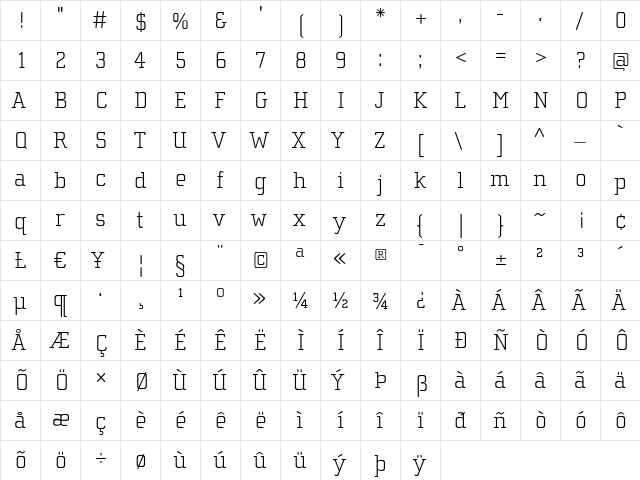
ChollaSlab-Thin Thin
Design Context for ChollaSlab-Thin Typeface
ChollaSlab-Thin combines the readability of serif typography with the visual weight of a slab construction, resulting in a typeface that feels both authoritative and approachable. Its slender proportions lend an understated elegance to any composition.
Works well in editorial design, news publishing, impactful branding, and poster typography.
Pro Tip: Try ChollaSlab-Thin set tight in headlines for a classic editorial feel. Its slab serifs create strong horizontal rhythm that anchors a page layout.